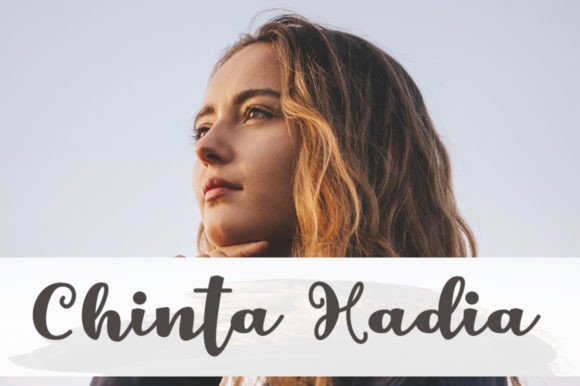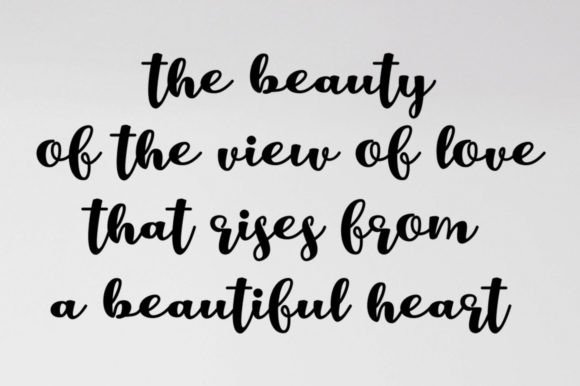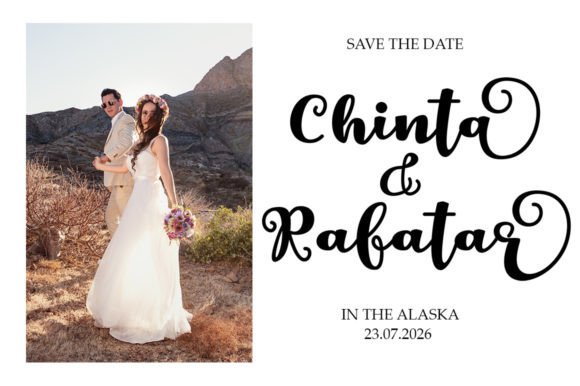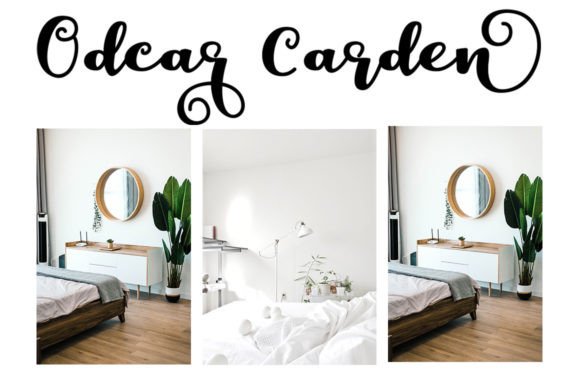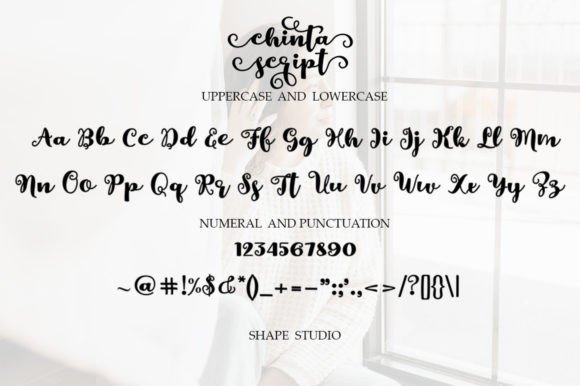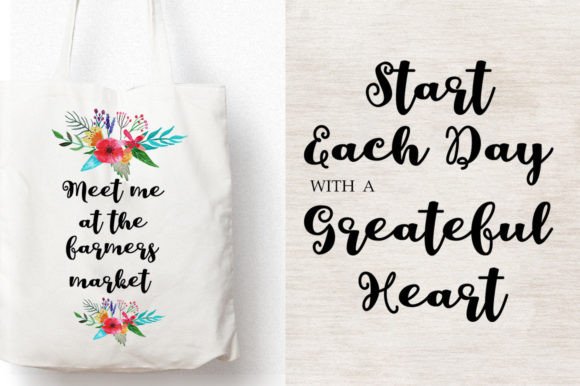
Unleashing the Charm of Chinta Font
Have you ever sat down with a pen and paper, trying to put your thoughts into words, only to be met with a blank page staring back at you? The struggle is real, but what if I told you that there’s a font that can change that? A font that can add a touch of elegance and charm to your words, making them dance across the page. Enter the enchanting Chinta Font, a beautiful script font designed to bring a sense of warmth and personality to your designs.
Whether you’re a designer looking to add a handwritten touch to your wedding invitations, or a writer seeking to make your quotes stand out, Chinta Font is the perfect companion. Its PUA encoding makes it easy to access all the glyphs and swashes, giving you endless possibilities to create unique and captivating designs. With Chinta Font, you’ll be able to breathe new life into your projects and take your creativity to the next level.
Key Features of Chinta Font
- Font Family: Chinta is a script font family, designed to mimic handwritten text.
- Unique Characteristics: Chinta features a unique blend of traditional and modern elements, with intricate details and flourishes that give it a distinctive look.
- Language Support: The font family supports a wide range of languages, including Latin, Cyrillic, and Devanagari scripts, making it suitable for multilingual projects.
- Font Weight and Style: Chinta is available in multiple weights, ranging from Light to Bold, and various styles, including Regular, Italic, and Script, offering flexibility in design.
Chinta Font Review
As a designer, I was excited to try out the Chinta font, but I have to say that it’s a mixed bag. ✨ Here are some things that work well:
- Chinta’s unique, hand-drawn feel gives it a lot of character and makes it perfect for projects that need a touch of personality.
- The font is highly customizable, with a wide range of weights and styles to choose from.
- It’s available in a variety of languages, making it a great option for global projects.
On the other hand, there are some limitations that might make it less ideal for certain projects:
- ⚠️ The font can be a bit hard to read at smaller sizes, so it’s best used for headings and titles.
- ⚠️ Some of the characters may not be as legible as others, so it’s worth double-checking your design before exporting.
- ⚠️ The font may not be compatible with all operating systems or devices, so be sure to test it thoroughly.
Overall, I’d say that Chinta font is a solid choice for designers who want to add a touch of whimsy to their projects. While it’s not perfect, its unique feel and customization options make it a great option for the right project.
Tips for Getting the Most Out of Chinta Font
1. Use Chinta Font for titles and headings to add a touch of elegance.
2. Combine Chinta Font with other fonts to create a unique and eye-catching design.
3. Experiment with different font sizes and styles to create visual interest.
Chinta Font is perfect for:
1. Wedding invitations and stationery.
2. Branding and logos.
3. Fashion and beauty designs.